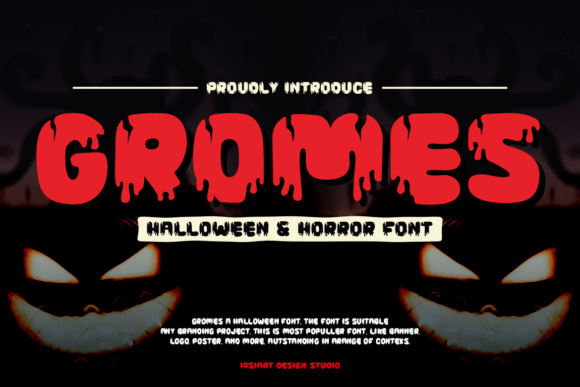
Unleash the Spooky Spirit with Gromes Font: A Terrifyingly Fun Halloween and Horror Display Font
As the spookiest time of the year approaches, designers and creatives are on the lookout for the perfect font to capture the eerie essence of Halloween and horror themes. Look no further than Gromes Font, a bold and chilling display font that’s sure to send shivers down the spines of your audience. In this article, we’ll dive into the gruesome details of Gromes, exploring its features, uses, and benefits for your next creepy creation.
The Birth of Gromes: A Font Born from the Depths of Horror
Gromes Font is a meticulously crafted display font, designed to evoke the fear and unease that comes with the Halloween season. Its bold, dripping letterforms seem to leap off the page, exuding a gruesome energy that’s perfect for scary movie posters, haunted house invites, or Halloween merchandise. Whether you’re a seasoned designer or a DIY enthusiast, Gromes is the ideal choice for adding a touch of terror to your projects.
Key Features of Gromes Font
- Bold and Dripping Letterforms: Gromes’ unique letterforms are designed to make a statement, with bold lines and dripping effects that give your text a spooky, eerie feel.
- Gruesome Energy: The font’s design is infused with a sense of fear and unease, making it perfect for horror-themed projects and Halloween-related designs.
- Chilling and Fear-Inducing: Gromes is designed to send chills down the spines of your audience, making it ideal for scary movie posters, haunted house invites, and other creepy creations.
- Perfect for Display Text: Gromes is optimized for display text, making it perfect for headlines, titles, and other prominent text elements.
Uses for Gromes Font
Gromes Font is incredibly versatile, making it suitable for a wide range of projects and applications. Here are some ideas to get you started:
- Scary Movie Posters: Create eye-catching posters for horror movies, complete with bold, dripping titles that will grab the attention of potential viewers.
- Haunted House Invites: Design spooky invitations for haunted houses, complete with Gromes’ eerie letterforms that will set the tone for a terrifying experience.
- Halloween Merchandise: Add a touch of terror to your Halloween merchandise, including t-shirts, mugs, and other items, with Gromes’ bold and chilling design.
- Horror-Themed Packaging: Create eye-catching packaging for horror-themed products, such as candies, toys, and other treats.
Benefits of Using Gromes Font
So why choose Gromes Font for your next project? Here are just a few benefits of using this terrifyingly fun font:
- Instant Recognition: Gromes’ bold and chilling design ensures instant recognition, grabbing the attention of your audience and drawing them in.
- Flexibility: Gromes is incredibly versatile, making it suitable for a wide range of projects and applications.
- Easy to Use: Gromes is easy to use, even for those without extensive design experience.
- Unique and Memorable: Gromes’ unique design ensures that your project will stand out from the crowd, leaving a lasting impression on your audience.
Tips for Using Gromes Font
To get the most out of Gromes Font, here are a few tips to keep in mind:
- Use it Sparingly: Gromes is a bold font, so use it sparingly to avoid overwhelming your design.
- Pair it with Other Fonts: Experiment with pairing Gromes with other fonts to create a unique and visually appealing design.
- Experiment with Colors: Try out different colors and textures to add depth and interest to your design.
- Keep it Legible: Make sure your text is legible, even when using a bold font like Gromes.
In conclusion, Gromes Font is the perfect choice for adding a touch of terror to your Halloween and horror-themed projects. Its bold, dripping letterforms and gruesome energy make it ideal for scary movie posters, haunted house invites, and Halloween merchandise. With its ease of use, flexibility, and unique design, Gromes is sure to become a go-to font for designers and creatives looking to unleash the spooky spirit.